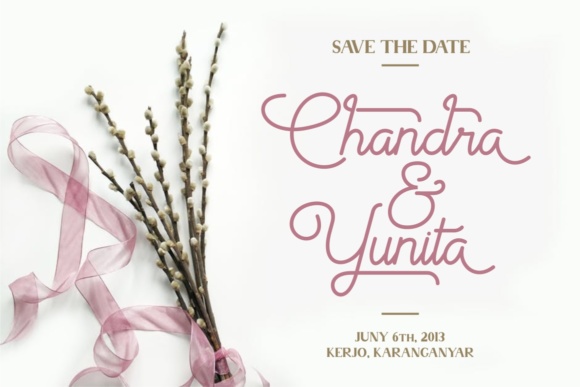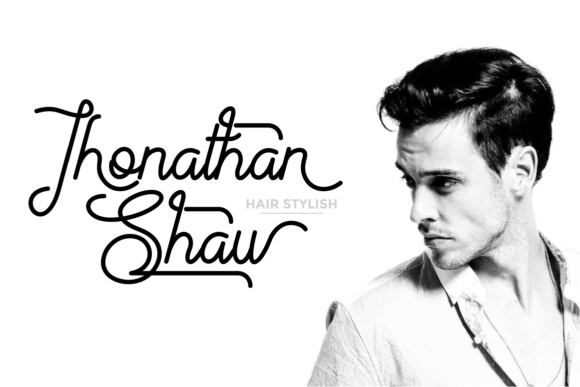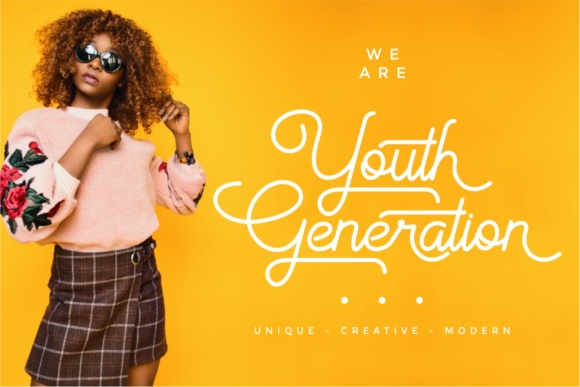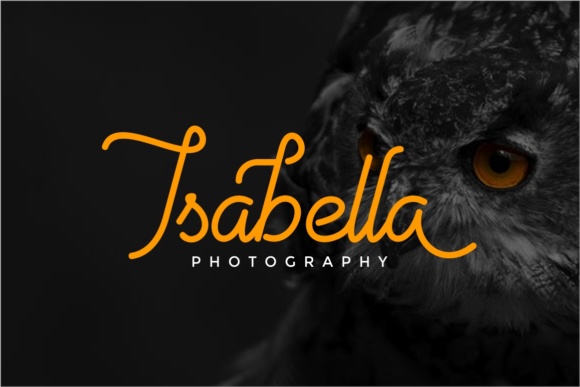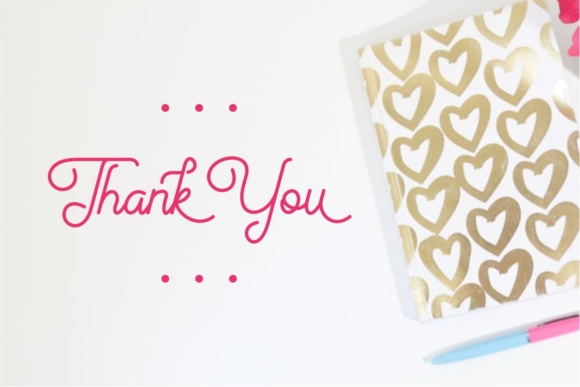
Aiushtya Font: Elevate Your Designs with Elegance and Modernity
In the realm of typography, a font can make or break a design. For designers and crafters seeking to infuse their projects with a touch of sophistication and contemporary flair, the Aiushtya font emerges as a stellar choice. This monoline script typeface is not just a collection of letters; it’s a design statement that speaks of elegance, modernity, and versatility. Let’s dive into the world of Aiushtya and explore how it can elevate your creative endeavors.
What is Aiushtya Font?
Aiushtya is characterized by its monoline script style, which means each character is crafted from a single line. This feature lends the font its distinctive fluidity and smoothness, making it a standout in the world of typography. The smooth characters are not just aesthetically pleasing; they also contribute to the font’s readability, ensuring that your message is conveyed with clarity and style.
Elegance and Modernity
The elegance of Aiushtya lies in its refined lines and the sophisticated vibe it exudes. It’s a font that doesn’t shout for attention but commands respect with its understated luxury. The modern look of Aiushtya makes it perfect for projects that demand a current and trendy feel. Whether you’re working on a high-end brand logo, a fashion magazine, or an advertising campaign, Aiushtya brings a level of sophistication that can set your design apart.
One of the key advantages of the Aiushtya font is its versatility. It’s not limited to a specific type of project but can be used across a wide range of applications. Here are some of the areas where Aiushtya truly shines:
- Logos: Create a lasting impression with a logo that embodies elegance and modernity.
- Signatures: Add a personal touch to your digital or printed signatures.
- Taglines: Make your brand’s tagline memorable with a stylish and contemporary font.
- T-shirts: Design eye-catching apparel that stands out with Aiushtya’s smooth and elegant letters.
- Handwritten Quotes: Bring a touch of sophistication to inspirational or love quotes.
- Product Packaging: Elevate your brand’s packaging with a font that speaks of luxury and quality.
- Posters: Create stunning posters for events, promotions, or informational purposes.
Why Choose Aiushtya?
Choosing Aiushtya for your typography needs comes with several benefits:
- Unique Style: Stand out from the crowd with a font that is both unique and stylish.
- High Readability: Ensure your message is conveyed clearly without compromising on style.
- Flexibility: Use Aiushtya across various projects, from digital designs to print materials.
- Ease of Use: Aiushtya is easy to integrate into your designs, making it accessible for both beginners and professionals.
Aiushtya is more than just a font; it’s a design companion that can elevate your projects to new heights of elegance and modernity. Its monoline script style, smooth characters, and versatile application make it an ideal choice for designers and crafters looking to make a statement. Whether you’re aiming to create a stunning logo, an impactful poster, or stylish product packaging, Aiushtya is equipped to add that special touch of sophistication and trendiness to your designs. Explore the possibilities with Aiushtya and discover how it can transform your creative projects.